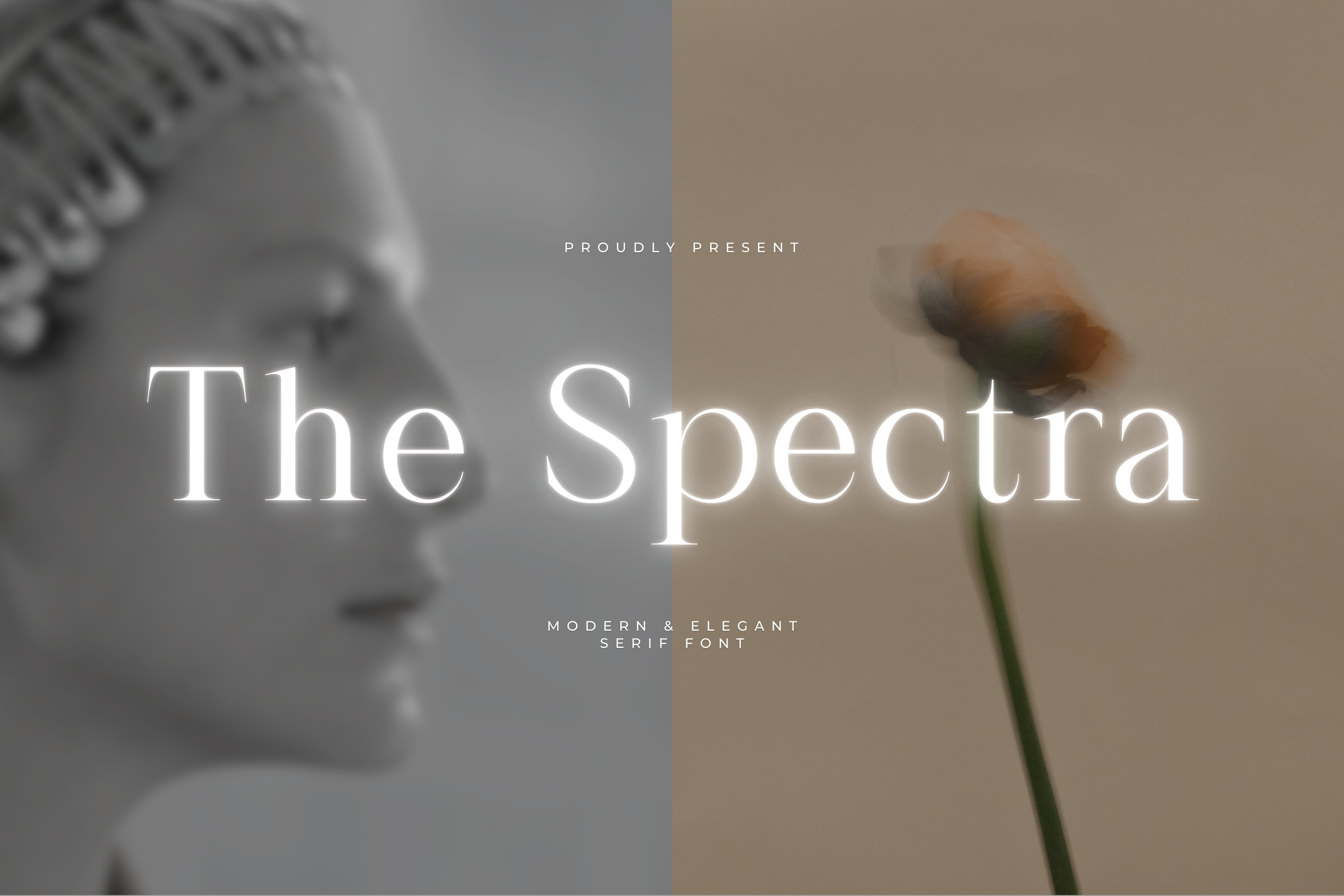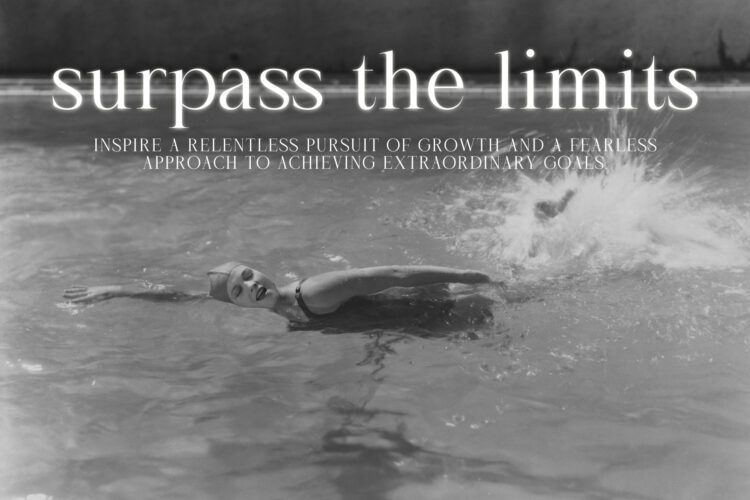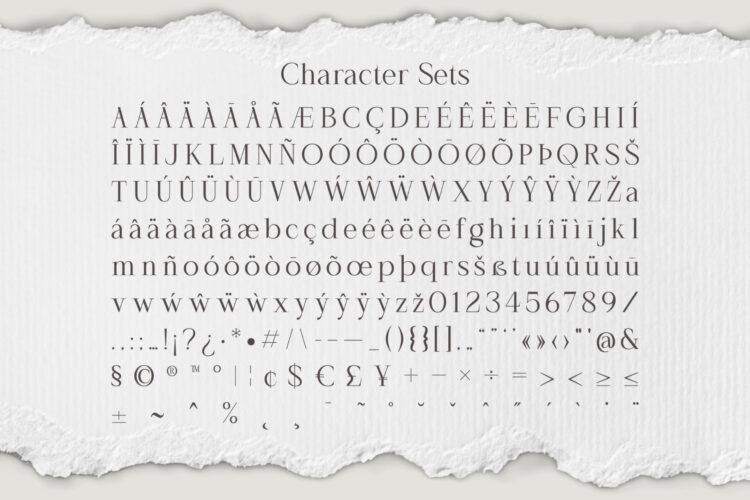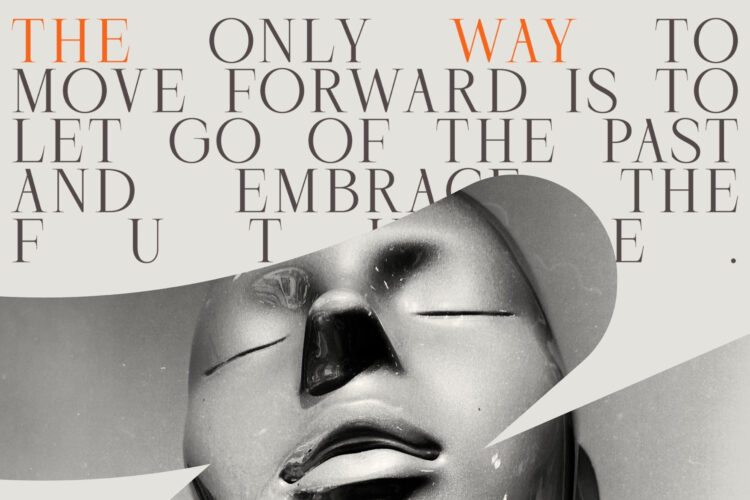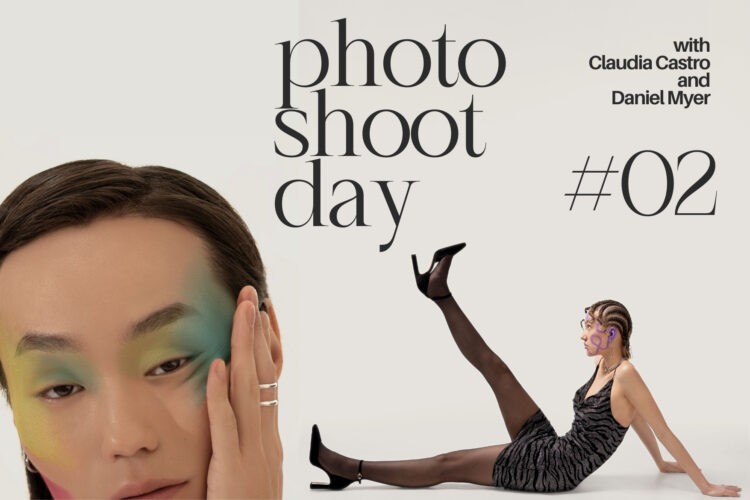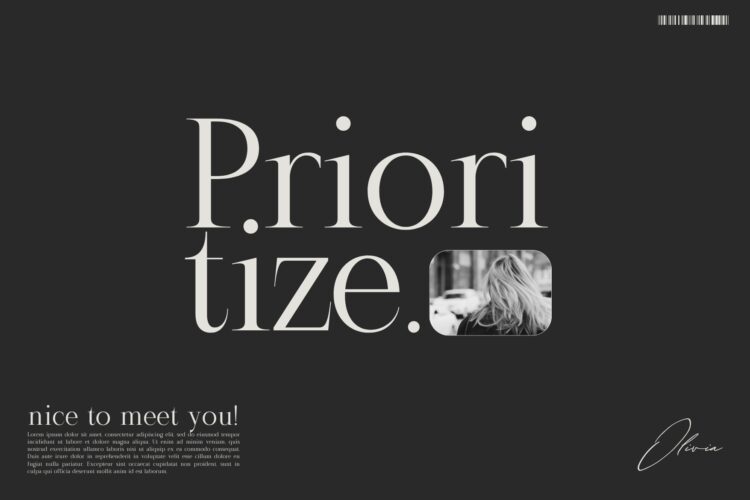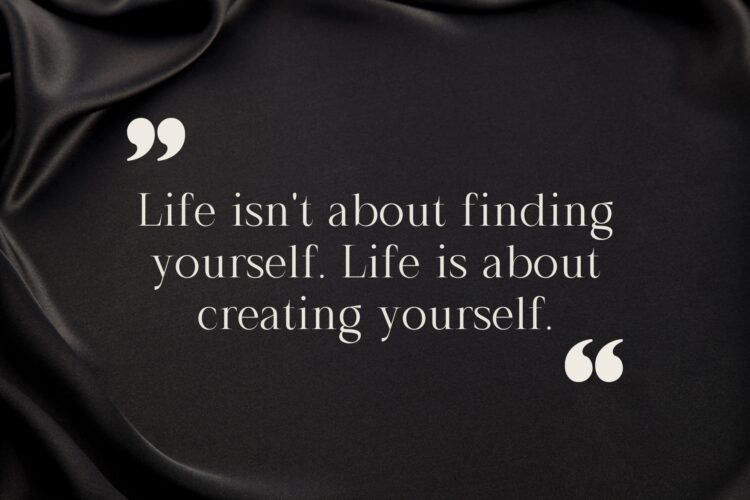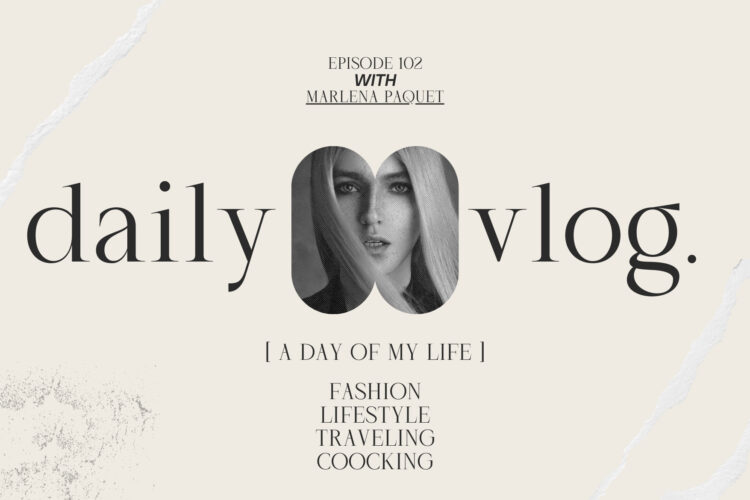
Introducing The Spectra Modern & Elegant Serif Font. The Spectra is a modern and classy typeface, best used as a display for headings, logos, branding, magazines, product packaging and invitations. The Spectra come with clean lines and smooth curves give any project an extra touch of class.
The Spectra – Modern & Elegant Serif Font